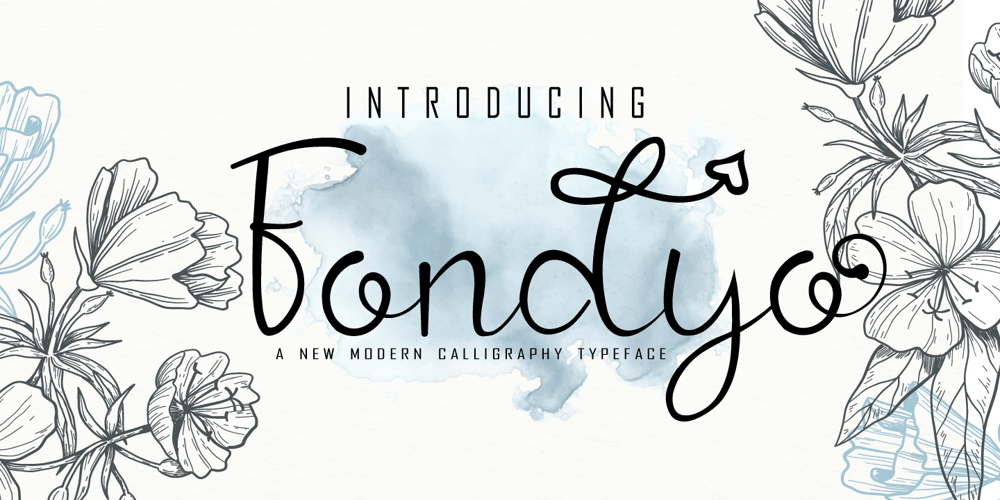
Fondyo Font Family was designed by Reza Mukhtazar and published by Rezastudio. Fondyo contains 1 styles and family package options. Fondyo is a beautiful light handwritten font with a unique feel and a stunning impact. It will add a luxury spark to any design project that you wish to create! This font is PUA encoded which means you can access all of the amazing glyphs and ligatures with ease!